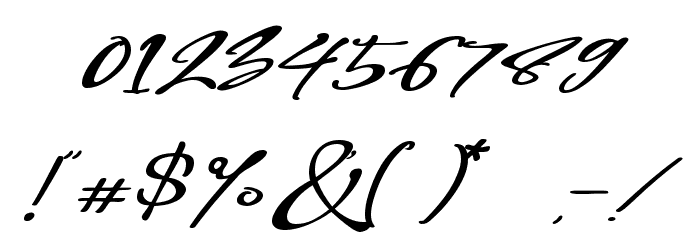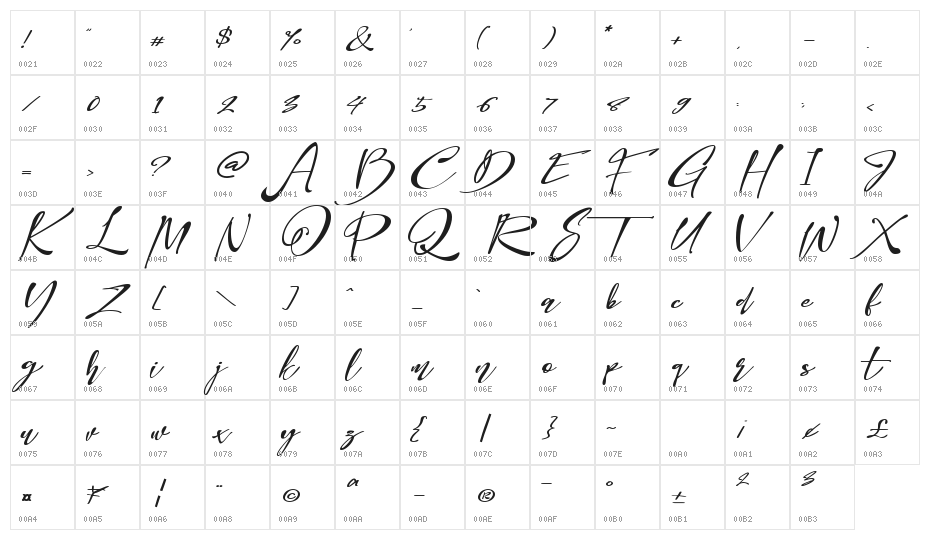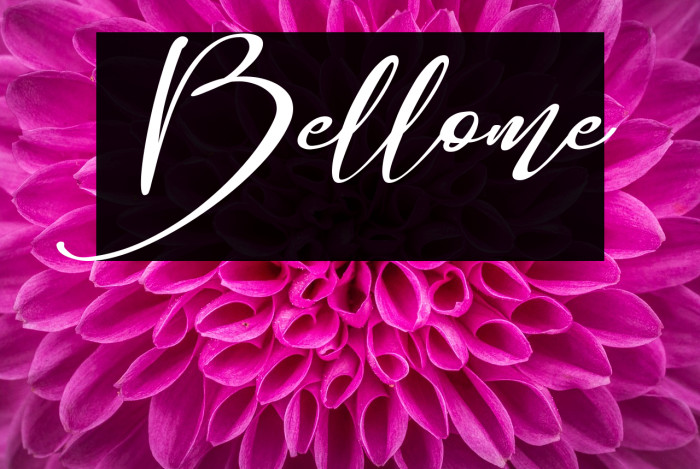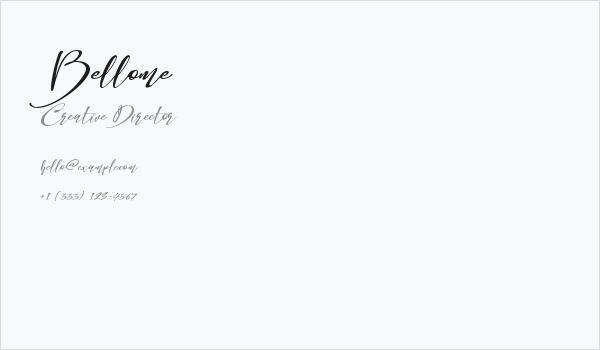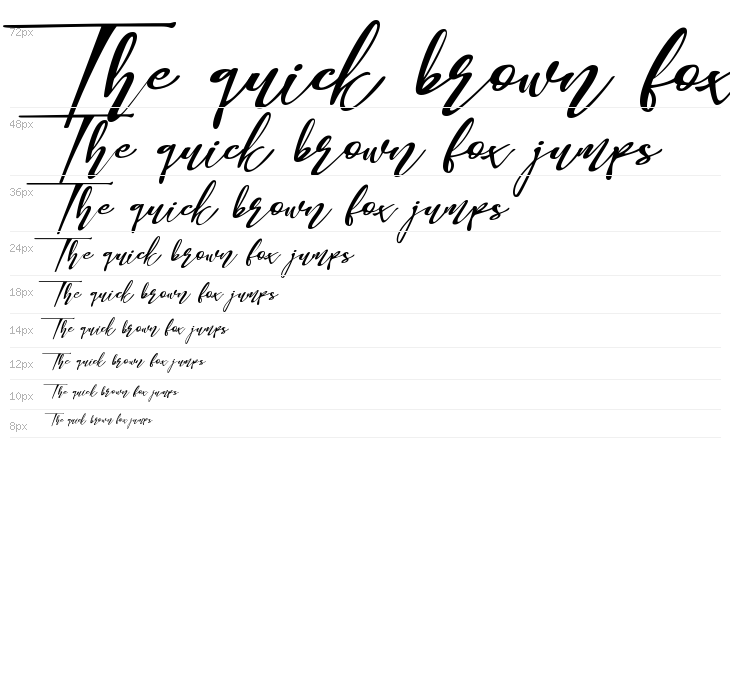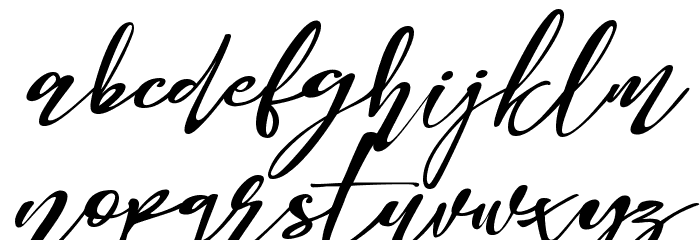
Bellome Font
Bellome Description
This font exudes a dynamic and expressive style, characterized by its fluid and cursive script. The letters are interconnected with a natural flow, giving it a handwritten appearance. The strokes vary in thickness, adding a sense of movement and energy to the text. The uppercase letters are bold and prominent, while the lowercase letters maintain a consistent rhythm and elegance. The numbers and special characters complement the overall design, maintaining the same lively and artistic flair. This font is perfect for projects that require a personal touch or a creative, artistic vibe.
| Proposed Projects | Ideal for wedding invitations, greeting cards, branding, and artistic projects. |